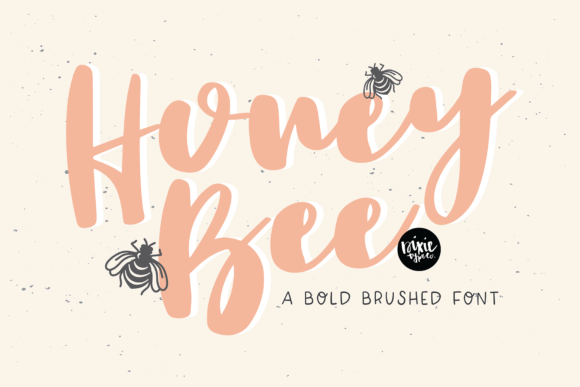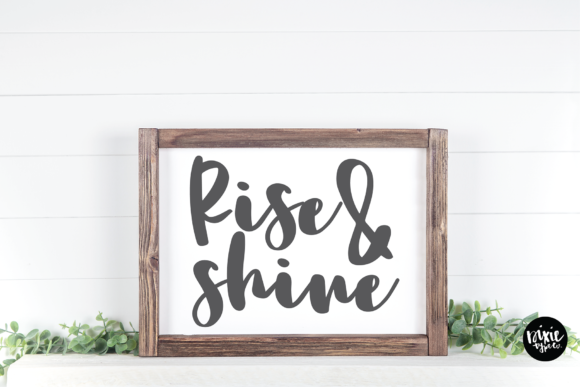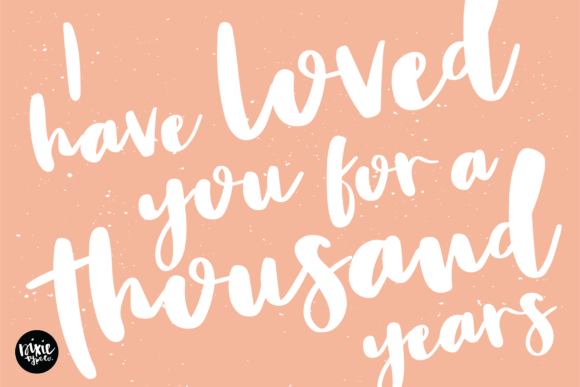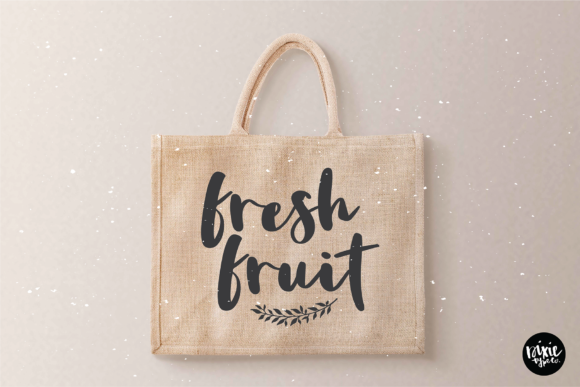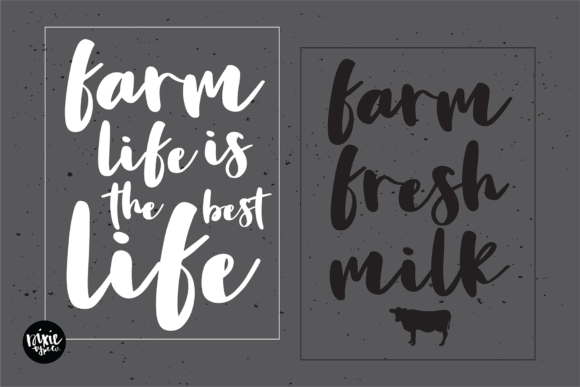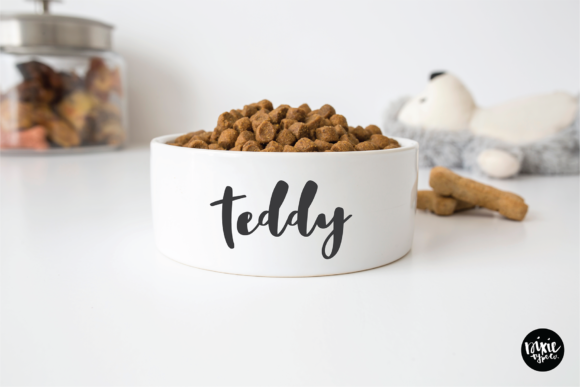
Honey Bee Font
About Honey Bee Font
Honey Bee is a whimsical handwritten font. It maintains its classy calligraphic influences while feeling contemporary and fresh. It will elevate a wide range of design projects to the highest level, be it branding, headings, wedding designs, invitations, signatures, logos, labels, and much more!